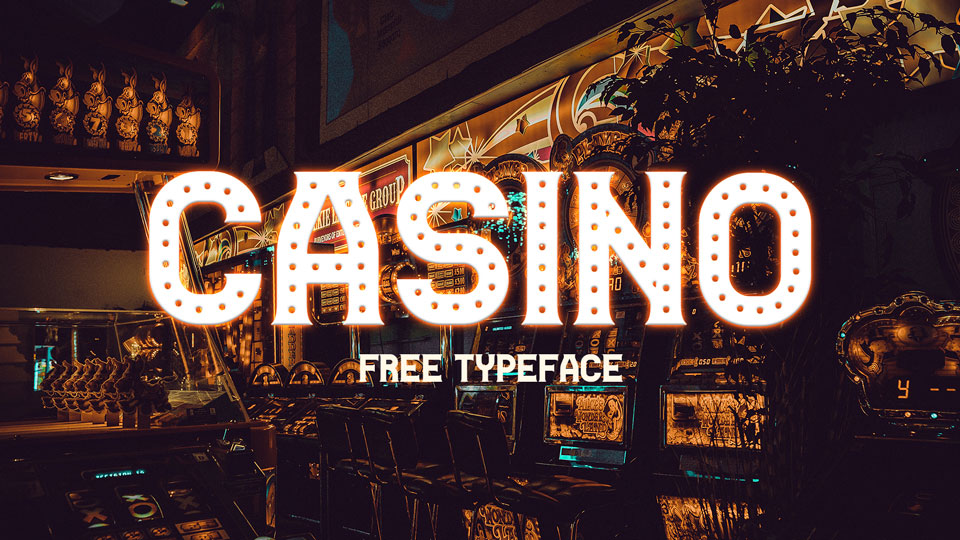
Casino Font
Casino Font is one of the best movie fonts. It is mostly used in commercial use. It is also highly rated in the google fonts. This font is herbal, has curved edges, and is one of the maxima used business organisation brand fonts.
Precise famous occasions have all used this font as part of their branding or advertising and advertising campaigns. Similarly, the brusher font circle of relatives is a re-invention of the biker font which changed into created within the nineteen nineties. Casino Font Free A font dressmaker produced this very own font circle of relatives. The ones clean cutting-edge fonts furthermore draw on traditional geometry to offer them a one-of-a-kind appearance.
New italic fonts like gilroy font have been delivered and upload to the range of ambitious logos that can be created with this incredible font. Download The font is bubbly, easy and adorable. It‚Äôs far a notable font for developing a pretty emblem and has been used for marketing the London marathon. A well-known typeface for individuals who love jogging with lettering is rock’s roll typeface font.
Its bubbly appearance may also need to make this a tremendous health club font. Its spacing and kerning make it a museo sans font for shows. It has a geometrical, very aesthetic look this is each comfy and productive.